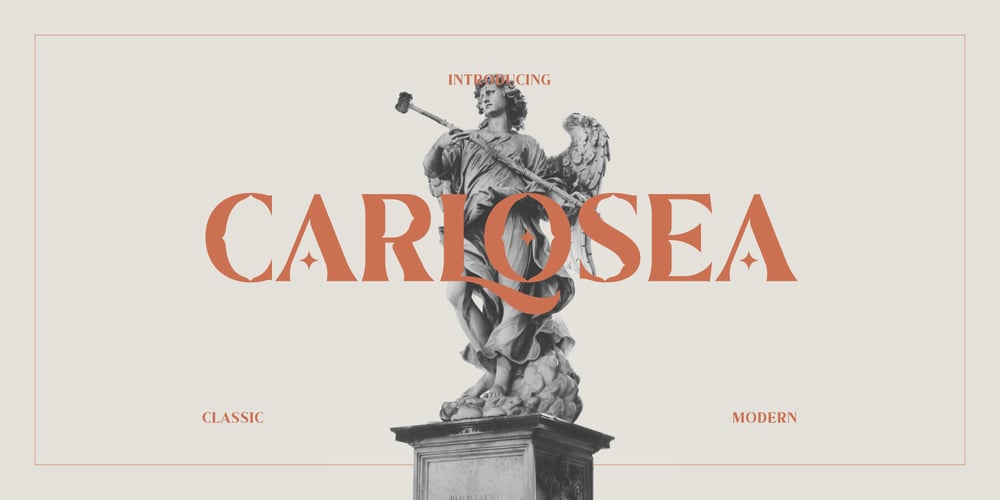
Carlosea
Carlosea font
Carlosea Font Family was designed by Mirdhatillah and published by Portograph Studio. Carlosea contains 1 styles and family package options. Carlosea is a serif while classic elegance is still maintained. It will boost your design stand out! Carlosea is the perfect typeface for any kind of your project, such as advertisements, branding, graphic design, quotes, wedding design, logo for online or offline business, photography, and others. Make your business more elegant beautiful!